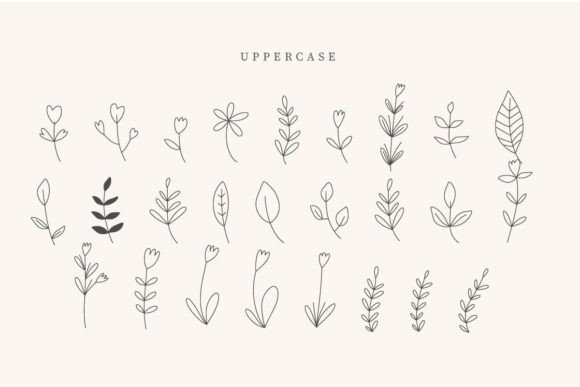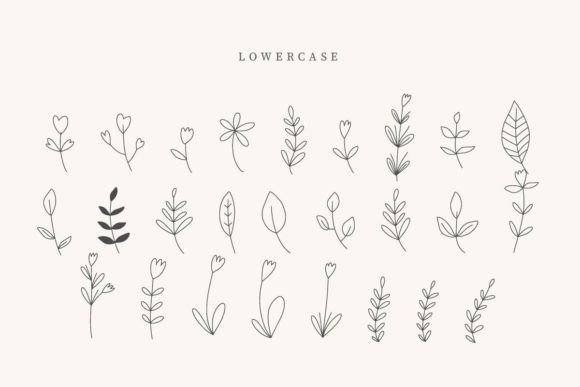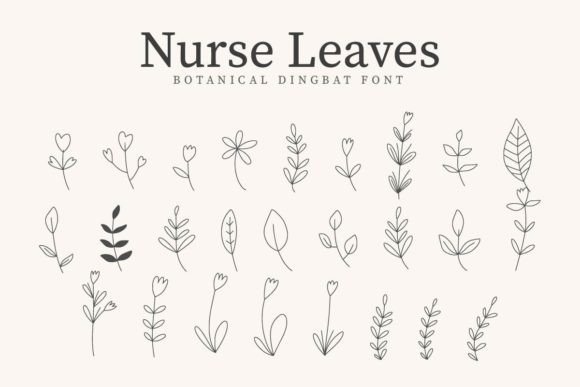
Introduction to Nurse Leaves Font
Introducing Nurse Leaves, an enchantingly charming dingbat typeface, flourishing with intricate glyph leaf doodles.
Its whimsical design seamlessly integrates into a myriad of creative projects, transforming everyday crafts into playful works of art Think trendy stickers, expressive journals, and detailed planners.